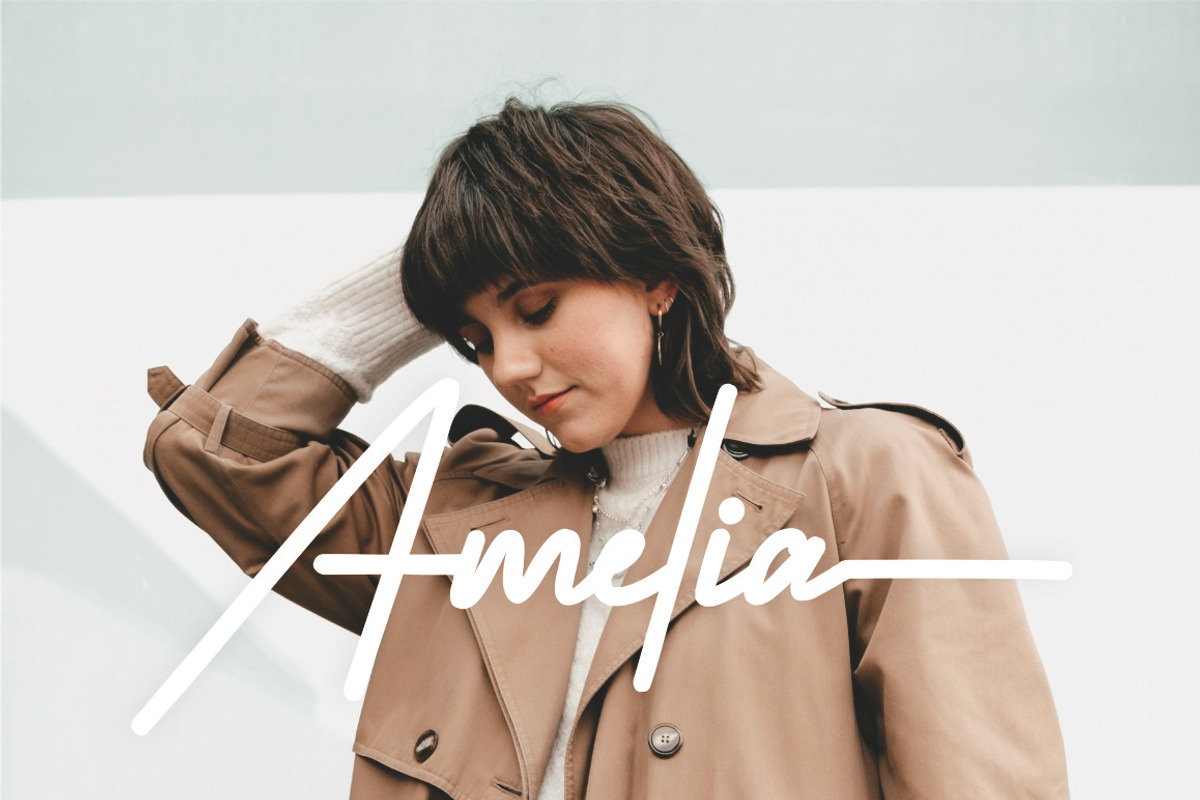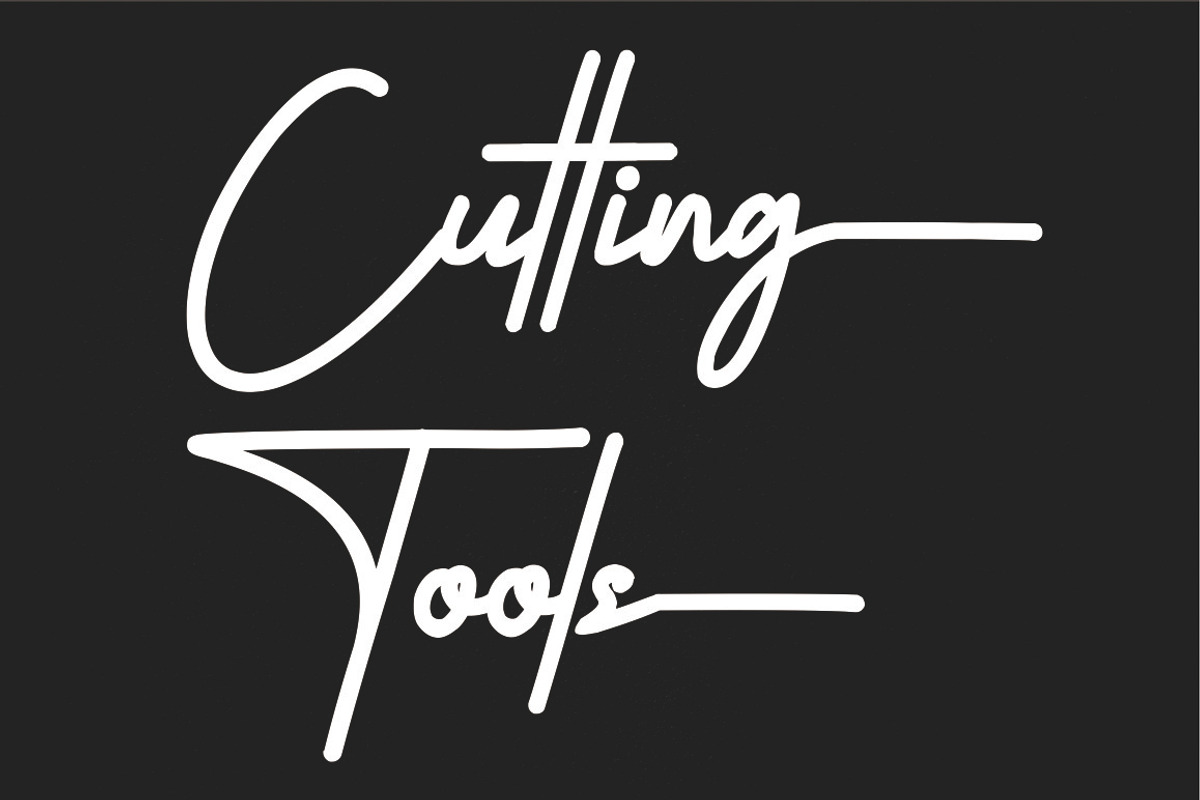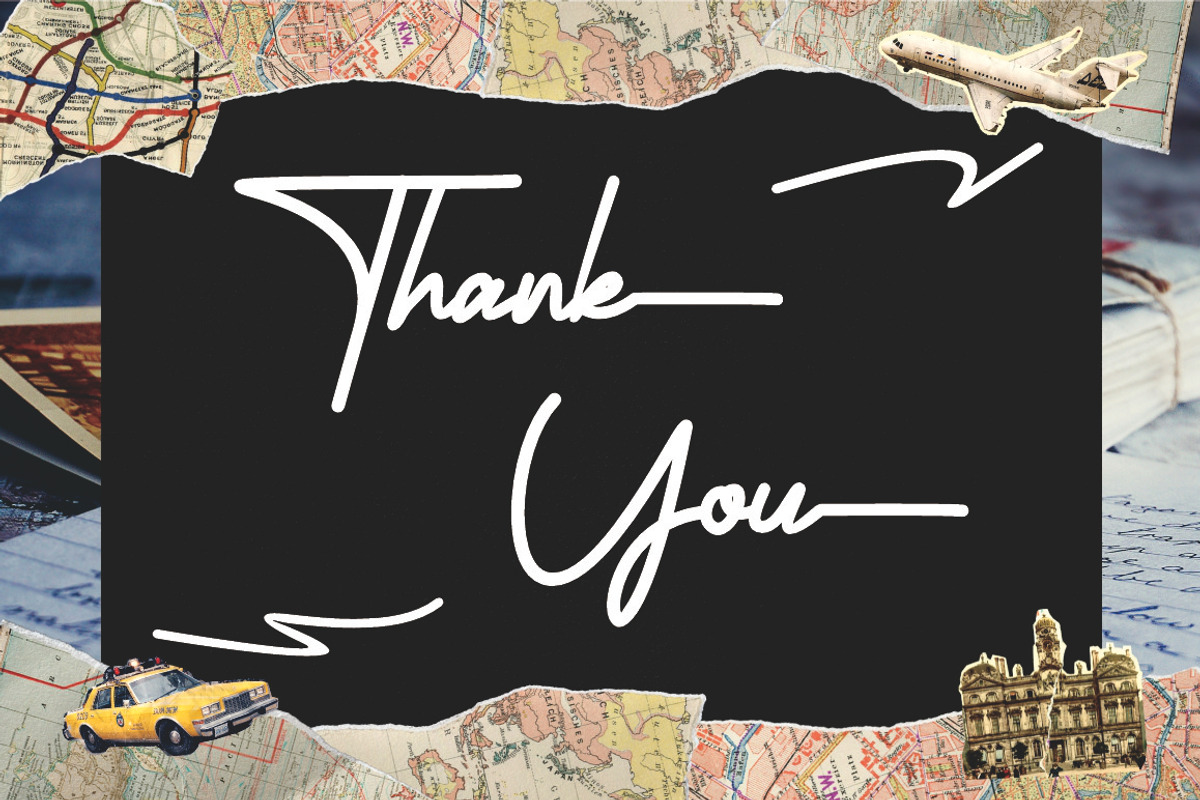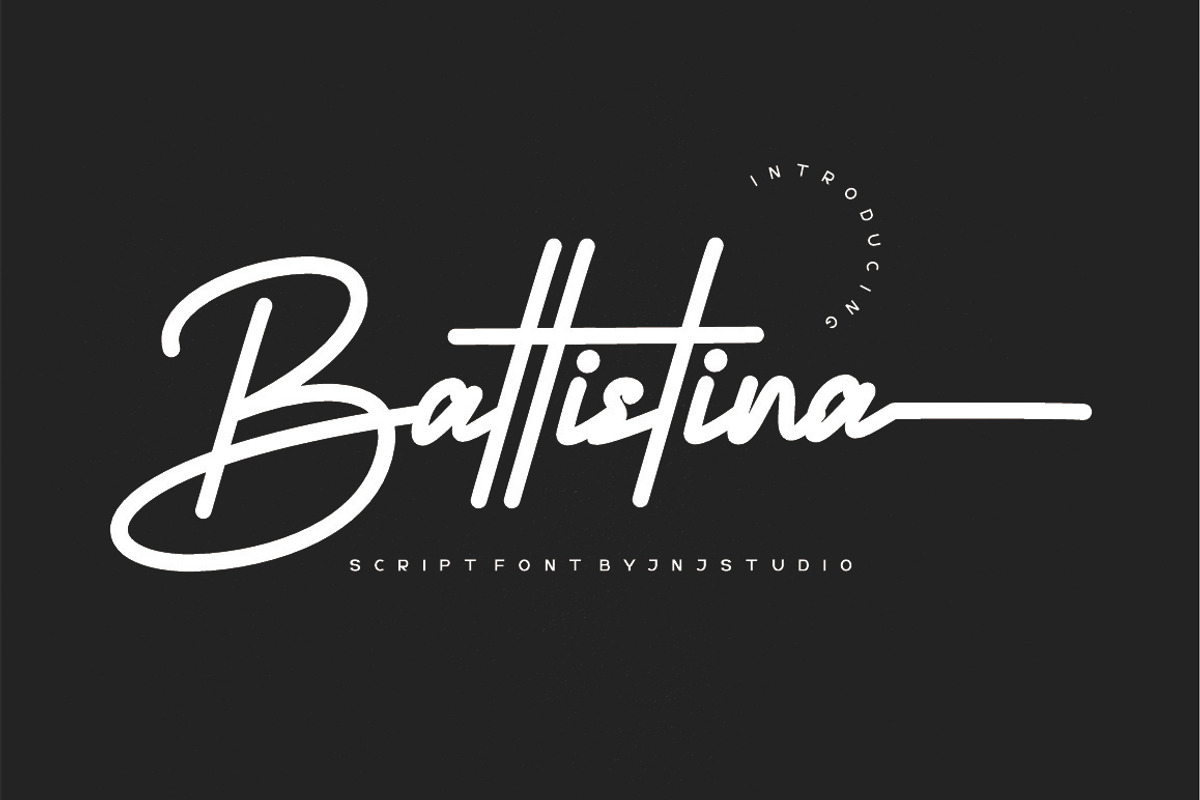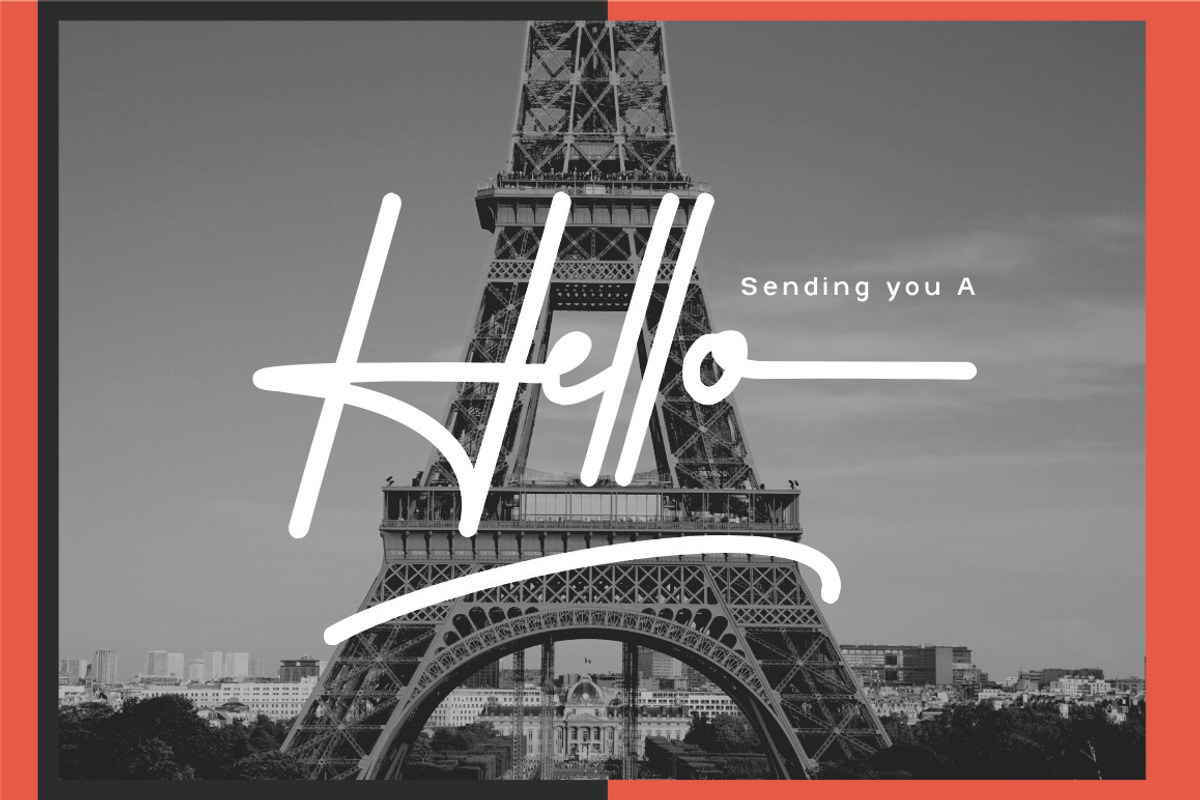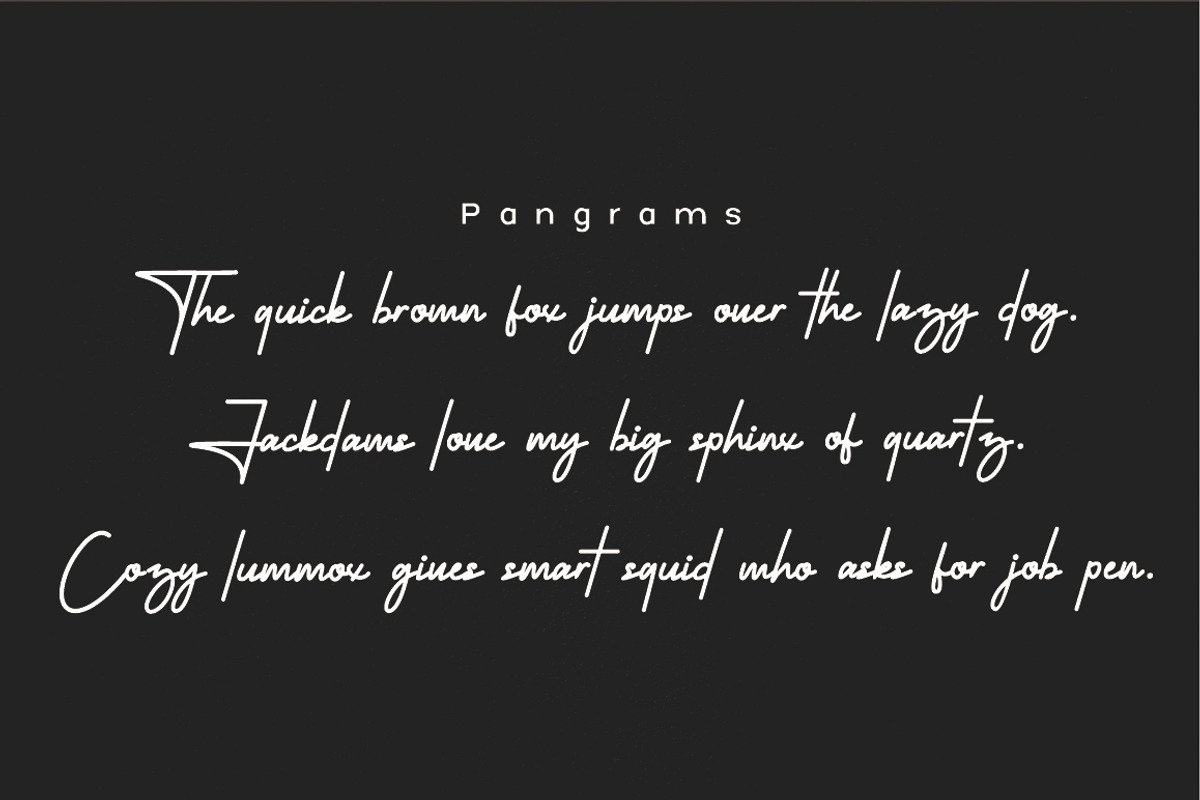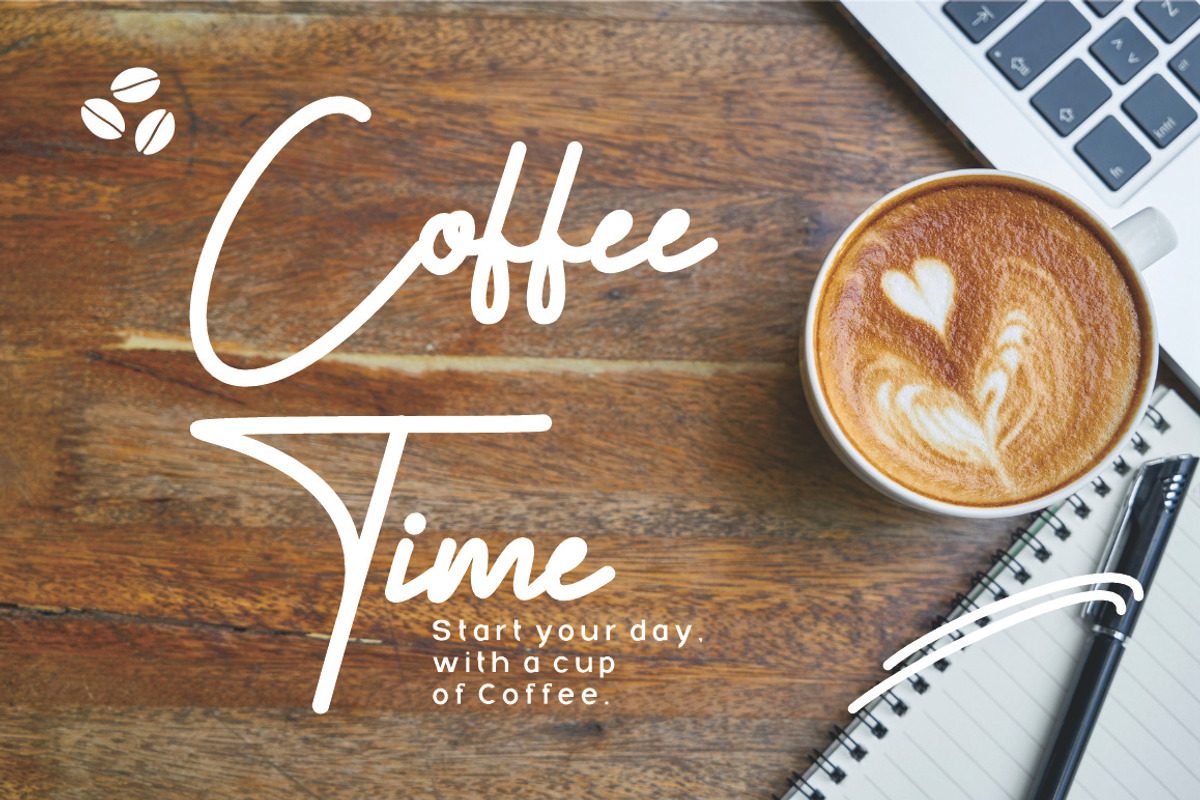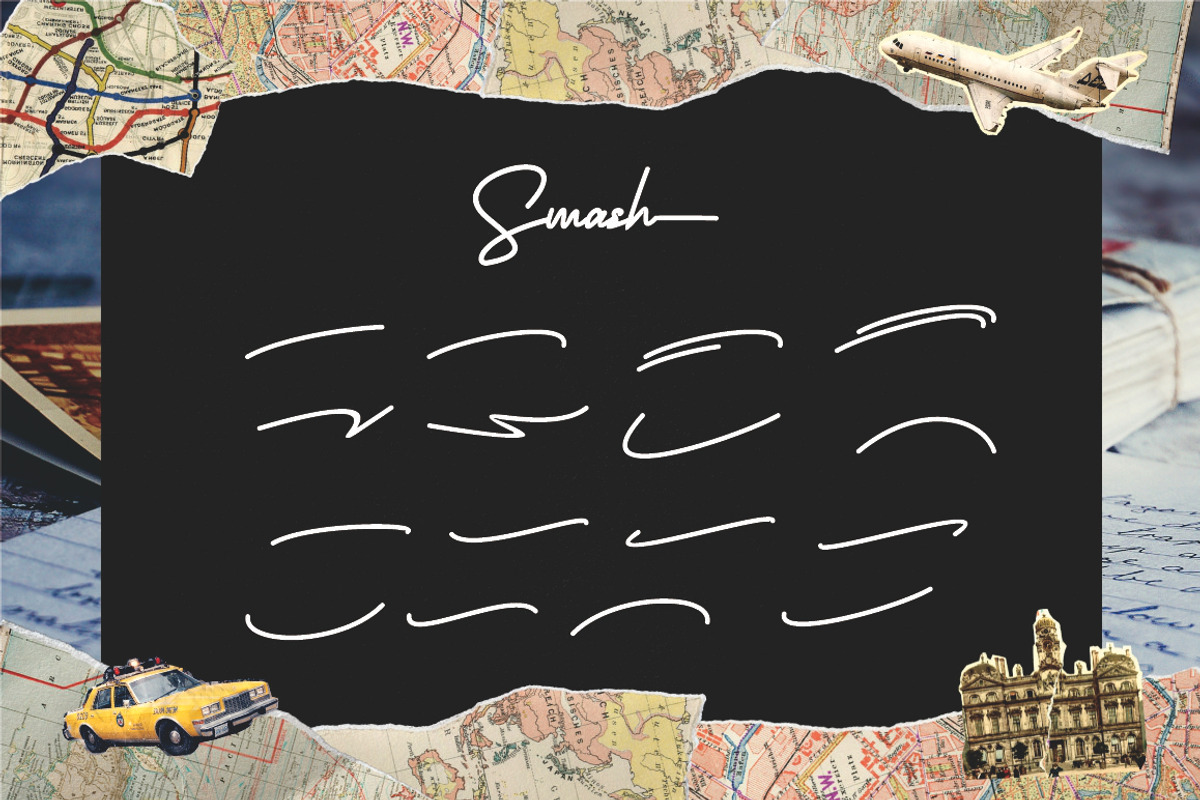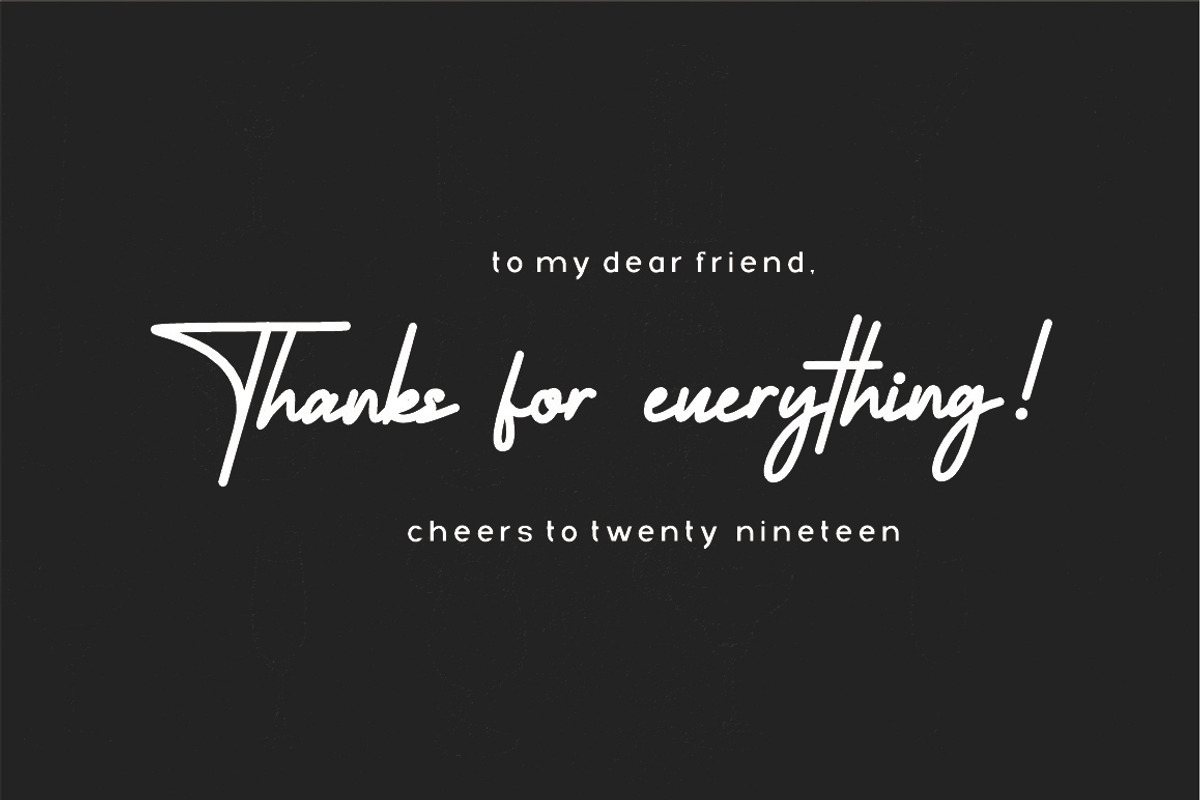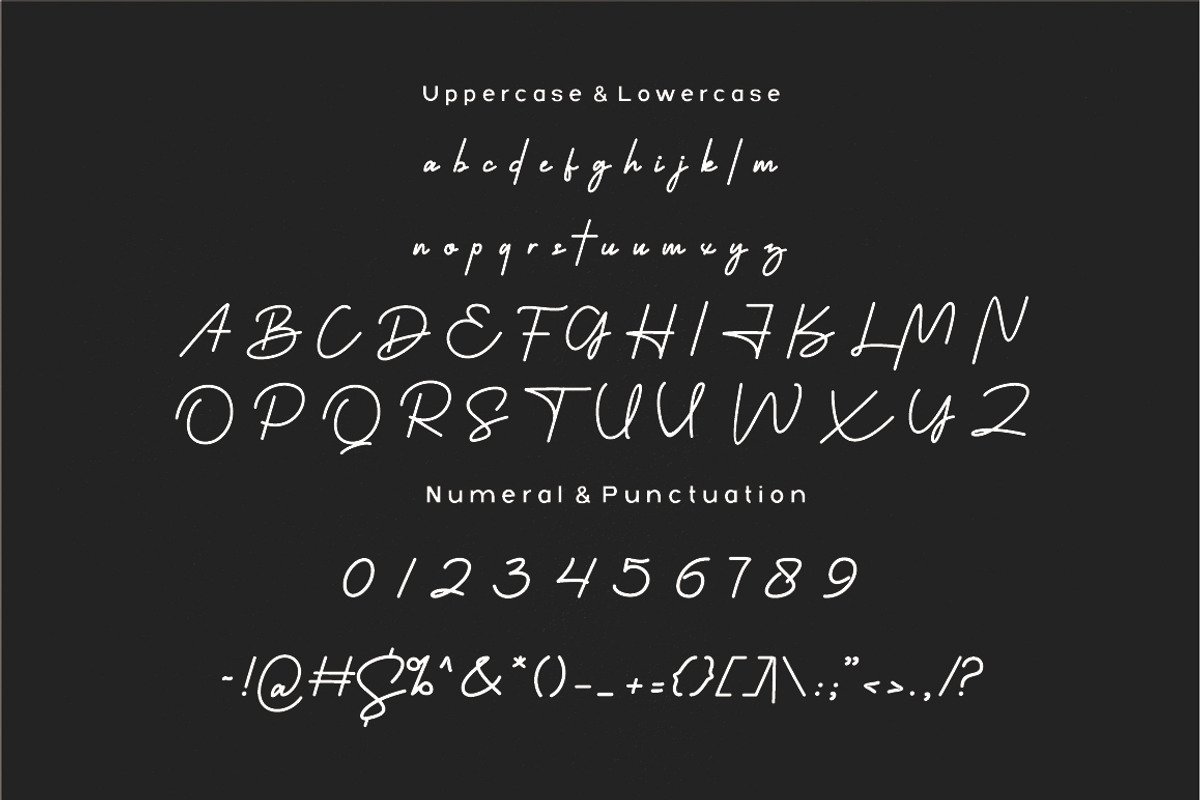
Battistina
Introducing "Battistina" is a graceful script typeface that captures timeless elegance with a soft, handwritten flow. Inspired by classic calligraphy and modern lettering, Battistina features smooth curves, balanced strokes, and refined details that create a warm yet sophisticated character.
Designed to feel natural and expressive, this font delivers excellent readability while maintaining an artistic charm. The gentle rhythm of its letters makes Battistina perfect for branding, wedding invitations, logos, social media designs, packaging, and editorial projects that require a touch of luxury and personality.
Battistina brings harmony between tradition and modern style—an elegant script that speaks with confidence, beauty, and authenticity.
- Stylish uppercase & lowercase letters
- Final Lowecase